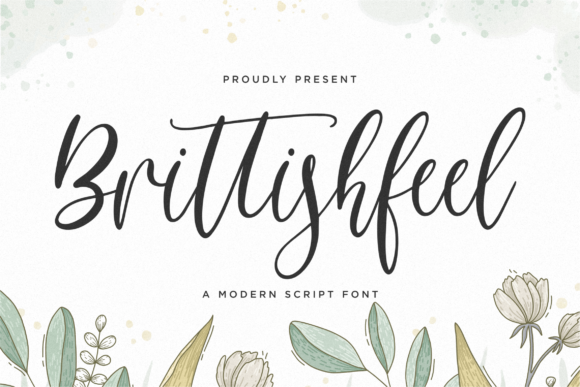
The Birth of a New Era in Typography: Brittishfeel Font
Enter Brittishfeel Font, a modern script font designed to elevate your designs and leave a lasting impression. With its elegant, hand-written feel, Brittishfeel Font is perfect for product packaging, branding projects, magazine layouts, social media graphics, weddings, and more. Whether you’re a seasoned designer or just starting out, Brittishfeel Font is a valuable addition to your toolkit, offering a unique touch that sets your designs apart from the rest.
- Unique Characteristics: Distinctive British feel with a vintage flair, inspired by classic British typography
Designer Review: Britishfeel Font
Overall, I was intrigued by the Britishfeel Font, a typeface that attempts to evoke the nostalgia of the British Empire. ✨ The font does achieve its goal of feeling old-school and classic, with a distinctive flair for the dramatic. The font’s use of ornate details and elegant curves is reminiscent of traditional British typography.
However, there are a few areas where the font falls short. ⚠️ The font’s weight distribution can be inconsistent, with some weights feeling more condensed than others. This can make it difficult to achieve a cohesive look across different text styles. Additionally, the font’s character set is not as comprehensive as I would have liked, with some characters feeling awkwardly proportioned or lacking in detail.
Here are some specific pros and cons:
- ✨ Unique, nostalgic feel that’s perfect for branding or design projects with a vintage vibe.
- ⚠️ Inconsistent weight distribution across different font weights.
- ⚠️ Limited character set, with some characters feeling awkwardly proportioned or lacking in detail.
- ✨ Elegant, ornate details that add a touch of sophistication to text.
Overall, I would recommend the Britishfeel Font for designers looking to add a touch of vintage flair to their projects. However, it may not be the best choice for projects that require a high degree of consistency or a comprehensive character set.
Tips for Getting the Most Out of “Brittishfeel Font”
For optimal results, use the “Brittishfeel Font” in conjunction with a distressed or vintage effect to enhance its unique character.
Experiment with different font sizes and styles to create a visually appealing hierarchy of text.
The “Brittishfeel Font” is ideal for:
Creating vintage-inspired posters and flyers
Designing retro-style websites and blogs
Adding a unique touch to business cards and letterheads
Alternatives to Brittishfeel Font
Playfair Display is a high-end serif font with elegant and luxurious feel. It is ideal for use in high-end branding, luxury advertising, and wedding invitations. Playfair Display is more elegant and refined compared to Brittishfeel Font, which has a more casual and laid-back feel.
Great Vibes is a modern script font that conveys a sense of freedom and adventure. It is perfect for use in creative projects, such as posters, social media graphics, and travel websites. Great Vibes has a more casual and relaxed feel compared to Brittishfeel Font, which has a more playful and whimsical feel.